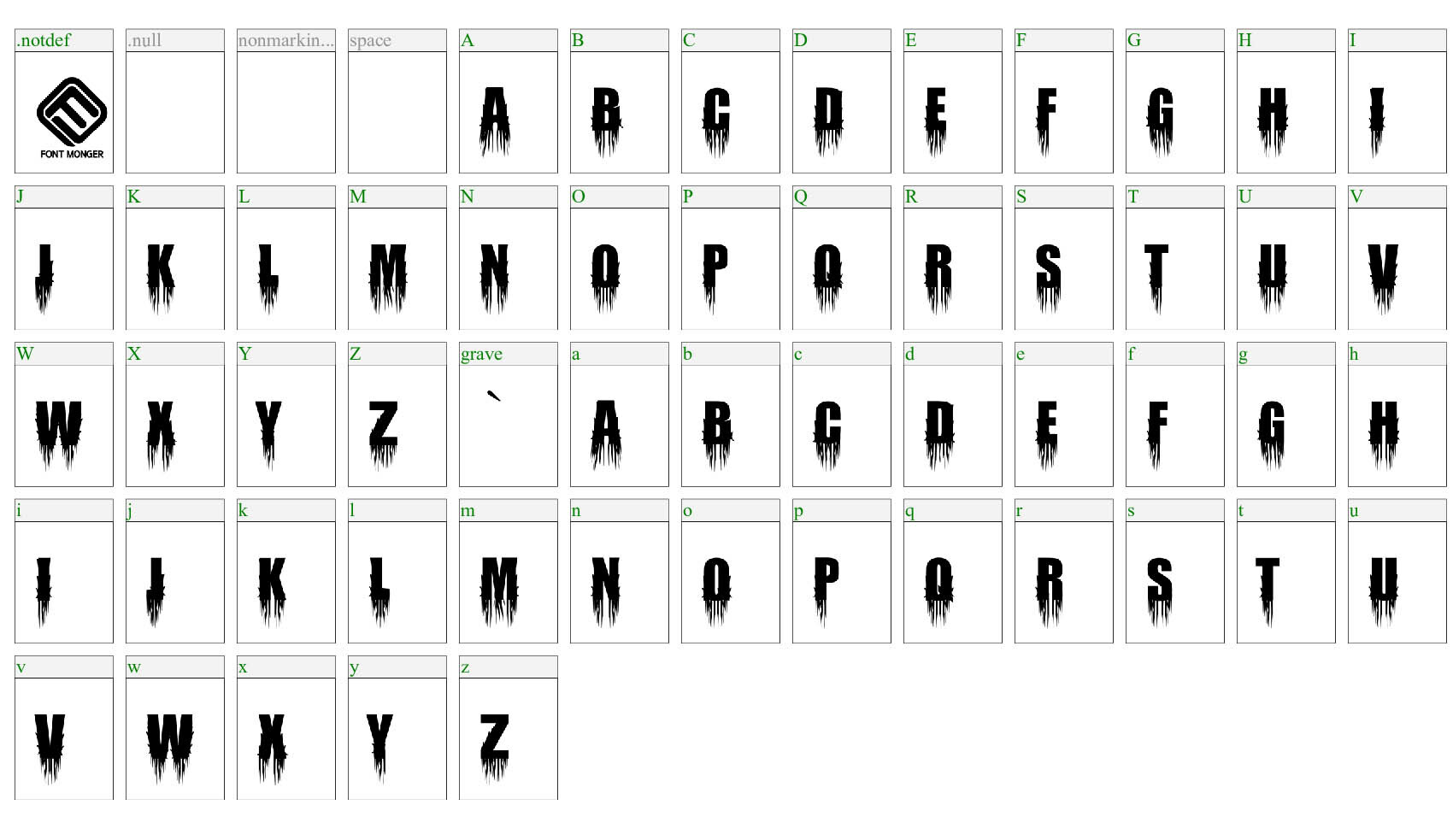
This is an all uppercase font. This font does not include numbers, symbols, punctuation, or accents.
Lowercase: Same as uppercase
Numbers: No
Symbols: No
Punctuation: No
Accents: No
Theme: Horror